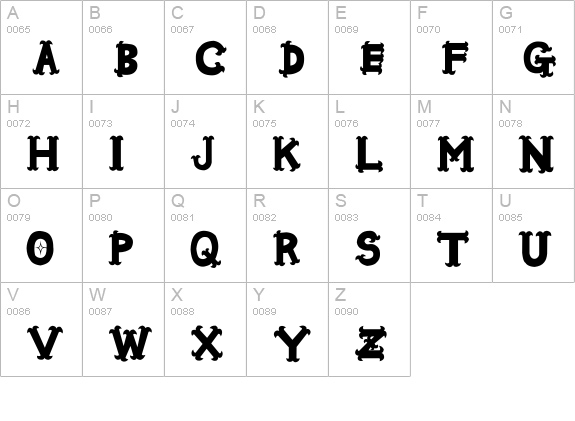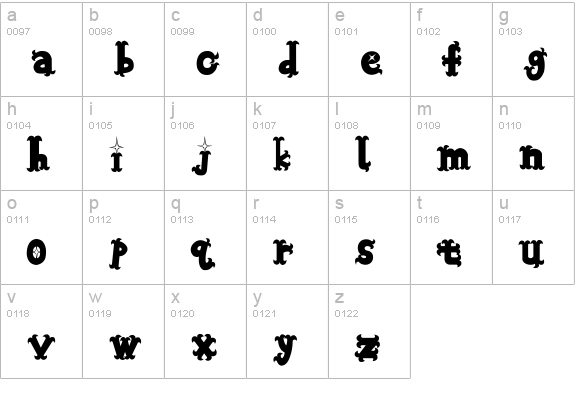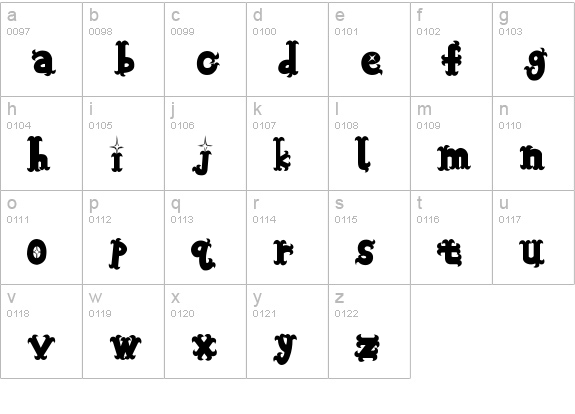
Oshare Black Font Details
Oshare Black is a maximum-weight, dramatic variant in the Oshare typeface family \xE2\x80\x94 well suited to maximum-impact headlines, posters, and packaging.
Oshare Black font is a stylish and modern typeface that exudes elegance and sophistication. With its bold and striking design, this font is perfect for creating eye-catching headlines, titles, and branding materials. The sleek and contemporary look of Oshare Black font makes it ideal for fashion, beauty, and luxury projects. Best of all, Oshare Black font is available for free download at FontsMarket.com. Whether you're a designer looking to enhance your creative projects or a business owner in need of a standout font, Oshare Black is the perfect choice. Don't miss out on this opportunity to add a touch of glamour to your designs with this stunning font. Download Oshare Black now and elevate your typography game!